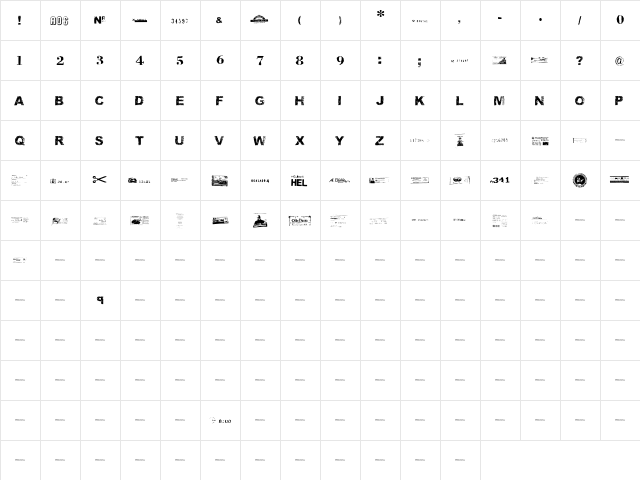
Ticket Scraps Urban
Design Context for Ticket Scraps Typeface
Ticket Scraps offers clean, dependable letterforms without strong stylistic allegiance, making it a practical choice for designers who need flexibility.
Pro Tip: Use Ticket Scraps in both headline and body roles to test its range before committing to a single application.